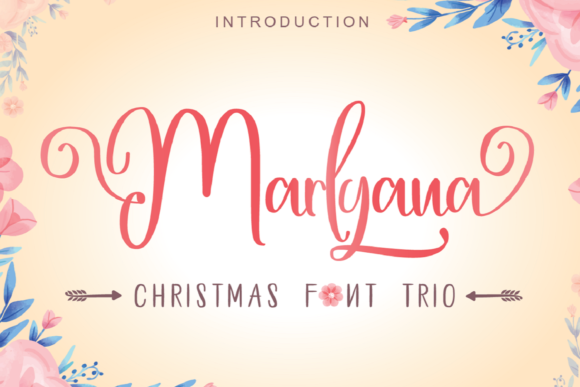
The Perfect Blend of Whimsy and Elegance: Introducing Happy Marlyana TrioFamily Font
There’s nothing quite like the feeling of discovering a font that perfectly captures the essence of your creative vision. As designers, we’ve all been there – scrolling through font libraries, searching for that one special something that brings our ideas to life. For me, that moment came when I stumbled upon the Happy Marlyana TrioFamily Font. Its fresh, handmade calligraphy style had me hooked from the very start.
With 5 variations that work seamlessly together, the Happy Marlyana TrioFamily Font is a game-changer for designers looking to add a touch of personality to their projects. Suitable for everything from greeting cards to branding materials, this versatile font is the perfect addition to any design arsenal. Whether you’re a seasoned pro or just starting out, the Happy Marlyana TrioFamily Font is an invaluable resource that’s sure to inspire your next creative project.
Happy Marlyana TrioFamily Font Key Features
- Font Family: Happy Marlyana TrioFamily is a unique font family consisting of three main fonts: Happy Marlyana, Happy Marlyana Script, and Happy Marlyana Sans.
- Size: The font family includes a wide range of weights and styles, from Light to ExtraBold, allowing for versatility in design.
- Resolution: Optimized for high-resolution displays, making it perfect for use in digital designs, such as website typography, social media graphics, and mobile app interfaces.
- Unique Characteristics: Happy Marlyana TrioFamily features a playful, handwritten feel with subtle imperfections, giving it a personal and human touch.
- Language Support: Designed to support multiple languages, including Latin, Cyrillic, and Greek alphabets, making it a great choice for global designs.
Designer Review: Happy Marlyana TrioFamily Font
I recently had the chance to play around with the Happy Marlyana TrioFamily Font, and I have to say, it’s a delightful addition to any design project. ✨ One of the things that stands out about this font is its versatility. It comes in three weights (light, regular, and bold) and three styles (script, serif, and sans-serif), making it suitable for a wide range of applications, from body text to headings and even logos.
Here are some of the key strengths of the Happy Marlyana TrioFamily Font: ✨
- Highly customizable: With its multiple weights and styles, you can create a consistent visual identity across your project.
- Playful yet professional: The font’s script style adds a touch of whimsy, while the sans-serif style keeps things clean and modern.
- Wide character set: The font includes a comprehensive set of characters, including numerals, punctuation, and special symbols.
However, there are a few limitations to keep in mind: ⚠️
- Not ideal for small text sizes: The font’s script style can become illegible at very small text sizes.
- No language support for non-Latin scripts: If you need to typeset text in a non-Latin script, you may need to look elsewhere.
Overall, I’m impressed with the Happy Marlyana TrioFamily Font. It’s a great choice for designers looking for a versatile, high-quality font that can add a touch of personality to their projects. With its wide range of customization options and comprehensive character set, it’s definitely worth considering for your next design project.
Use Happy Marlyana TrioFamily Font for headings and titles to create a visually appealing and harmonious design.
Combine it with other fonts to create a unique and eye-catching typography.
Experiment with different font sizes and colors to enhance the overall design.
Happy Marlyana TrioFamily Font is perfect for:
Creative projects, such as posters, flyers, and brochures.
Branding and marketing materials, such as business cards and logos.